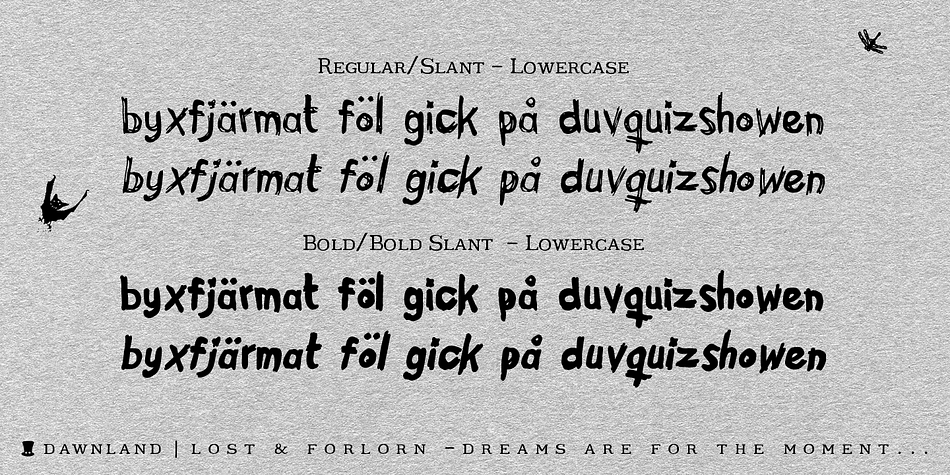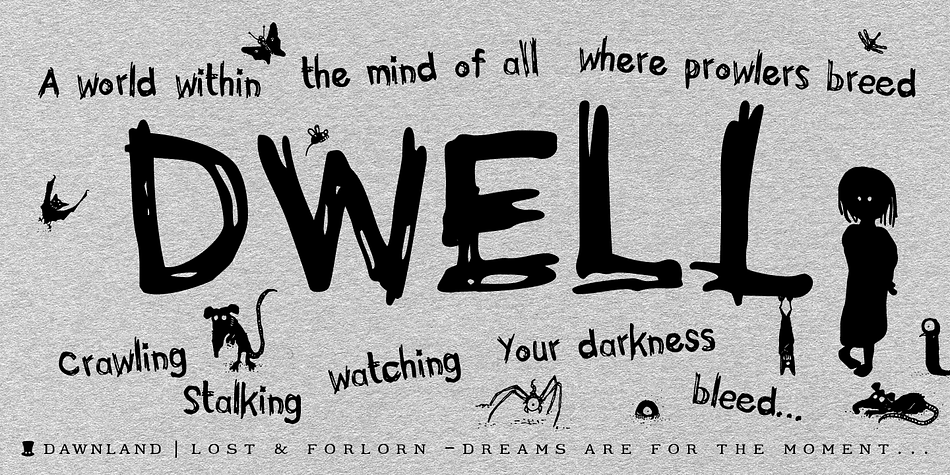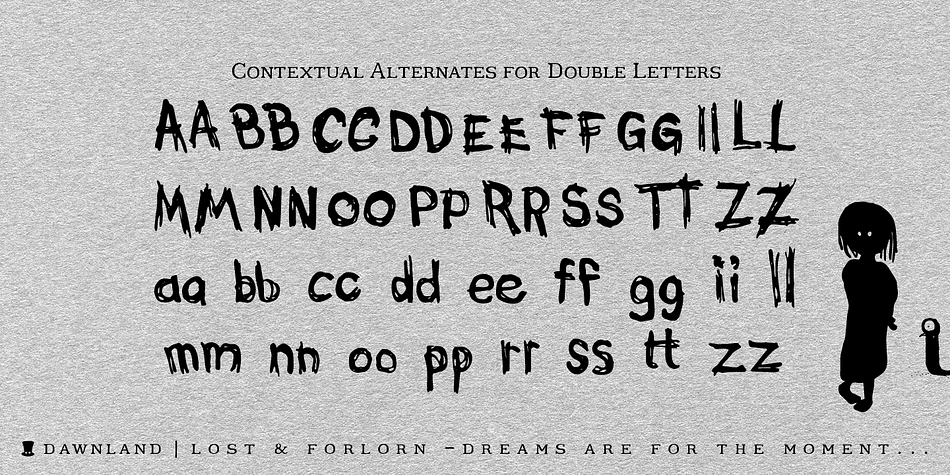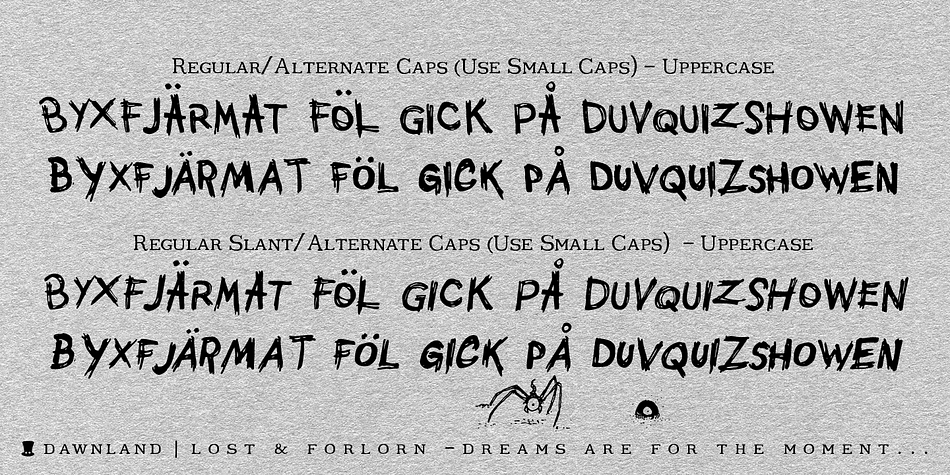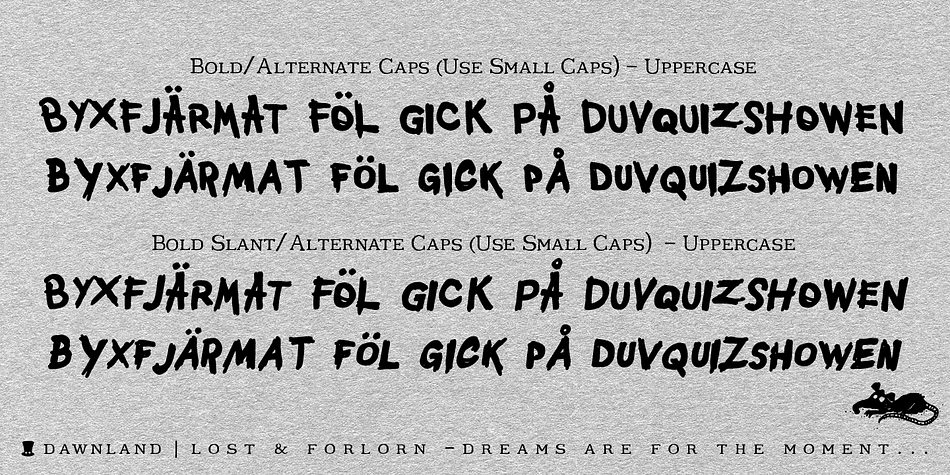
Designed by Daniel Viberg, Lost & Forlorn is a display and grunge font family. This typeface has four styles and was published by Dawnland.
Punk/horror typeface for harsh designs, or to add some uease to strict ones. It’s all up to you!
444 Glyphs with alternate caps using the Small Caps feature and double letters for a varied handwritten look. (Open type requiered.) Combine with the slanted and bold versions for even bigger variation.
Ink on paper and carefully touched up digitally so that all letters will look good printed in bigger sizes.